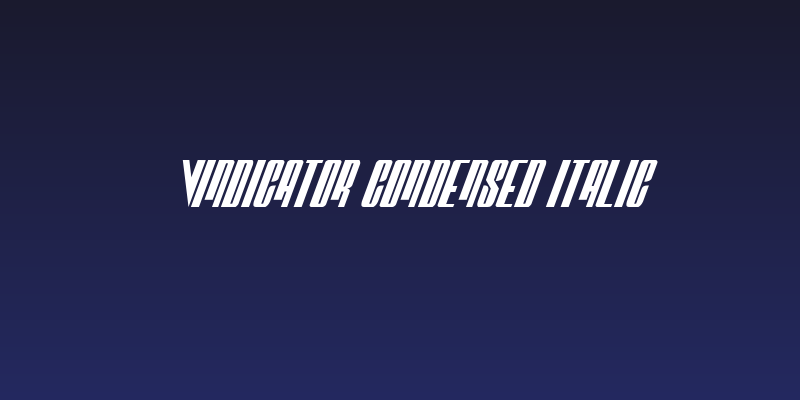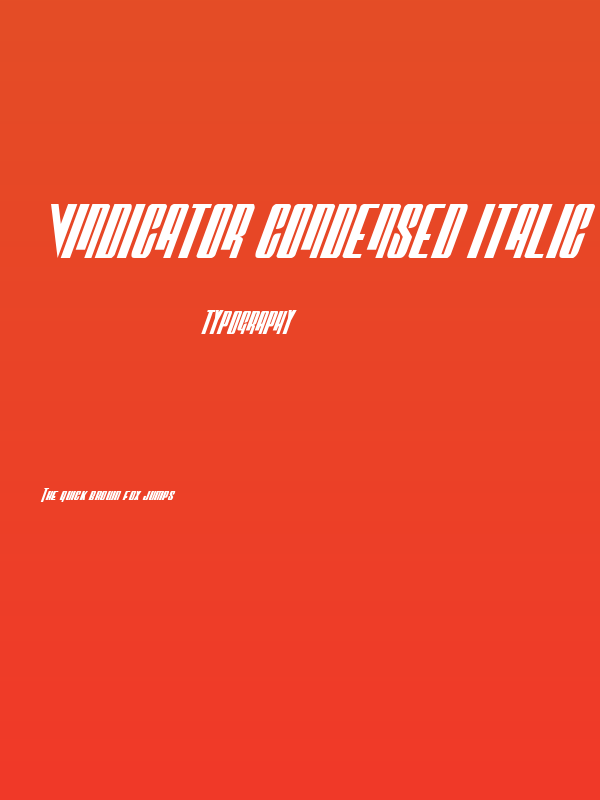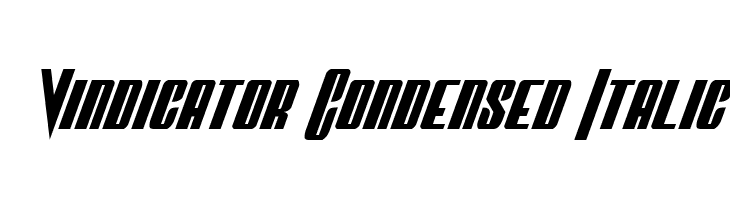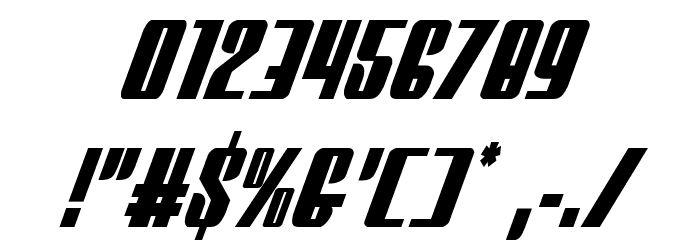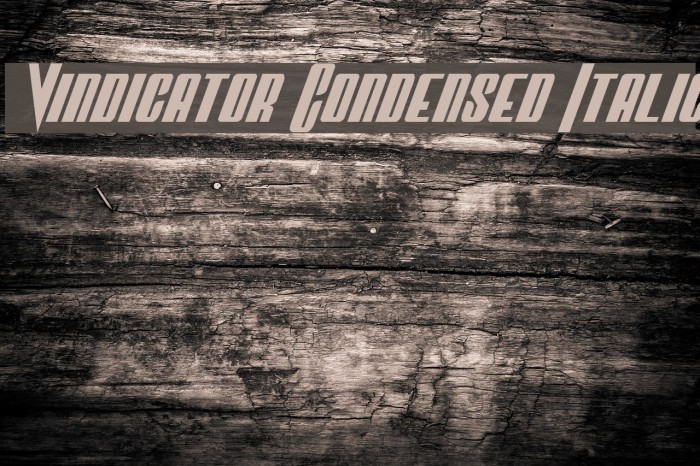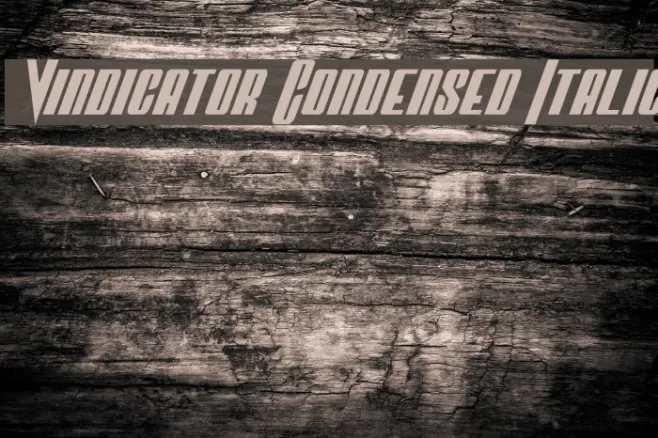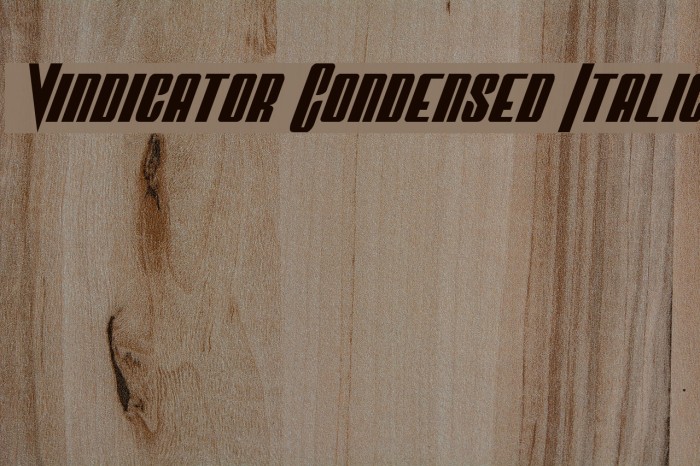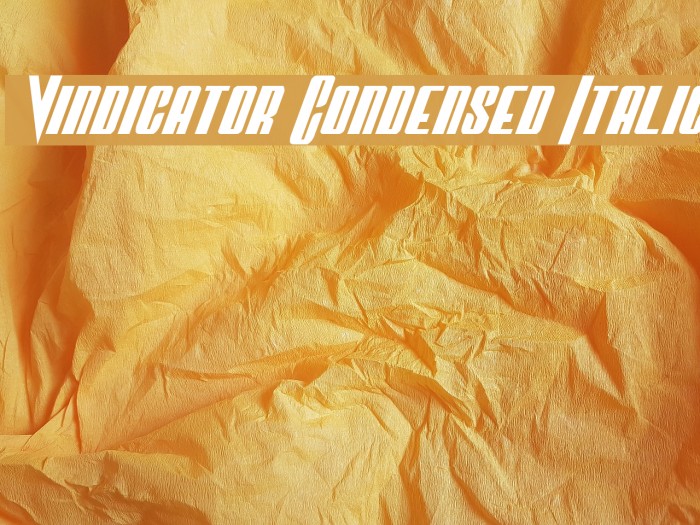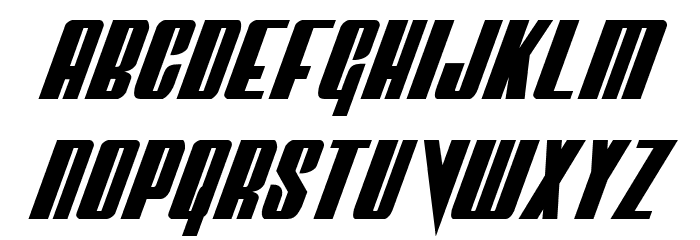
Vindicator Condensed Italic Font
Vindicator Condensed Italic Description
This font features a bold and dynamic style with a strong italic slant, giving it a sense of motion and urgency. The condensed letterforms are tightly packed, enhancing its impactful appearance. Each character is sharply defined with angular edges, contributing to a modern and aggressive aesthetic. The uppercase and lowercase letters maintain a consistent style, with numerals and special characters following suit. The overall design is sleek and assertive, making it suitable for attention-grabbing headlines and branding.
| Proposed Projects | Ideal for sports branding, action movie posters, dynamic advertising campaigns, and edgy logo designs. |